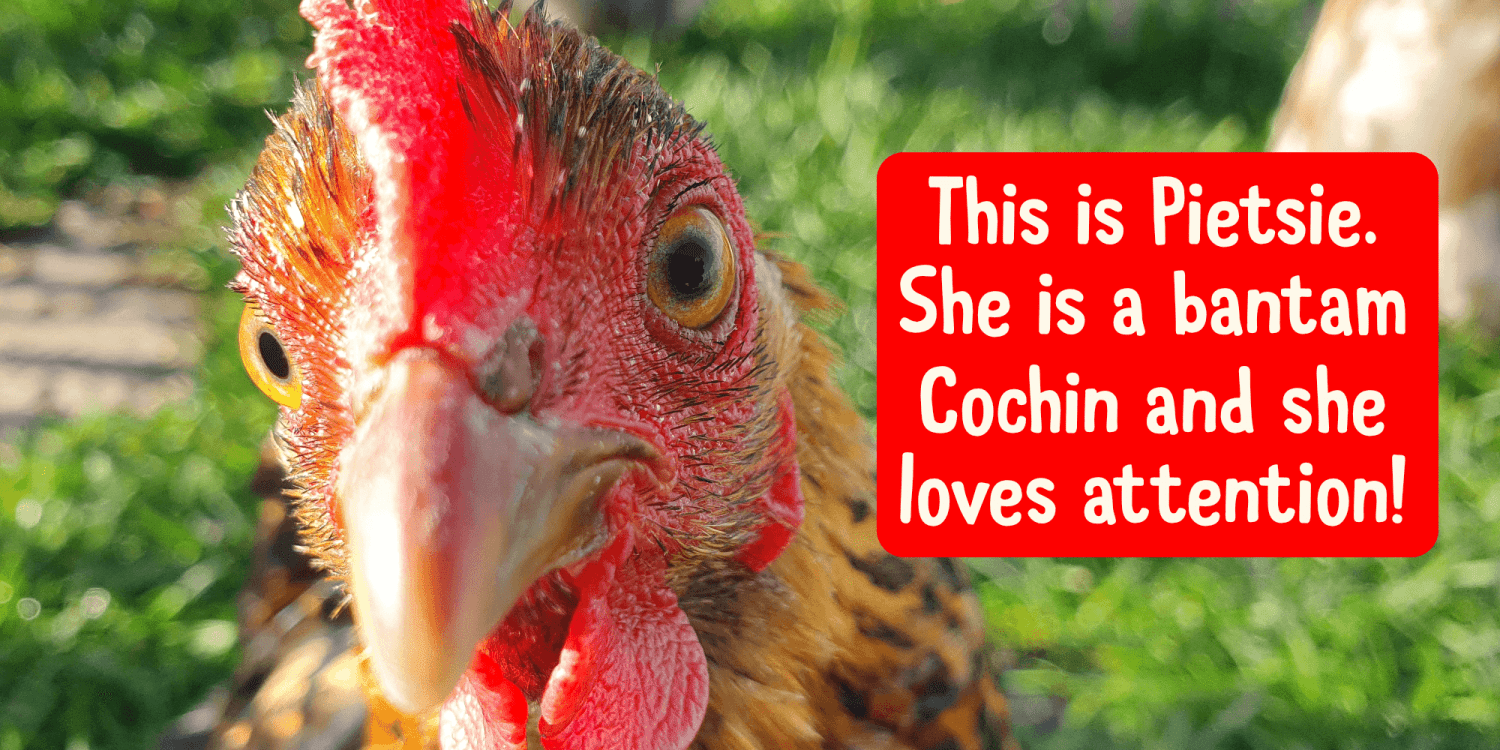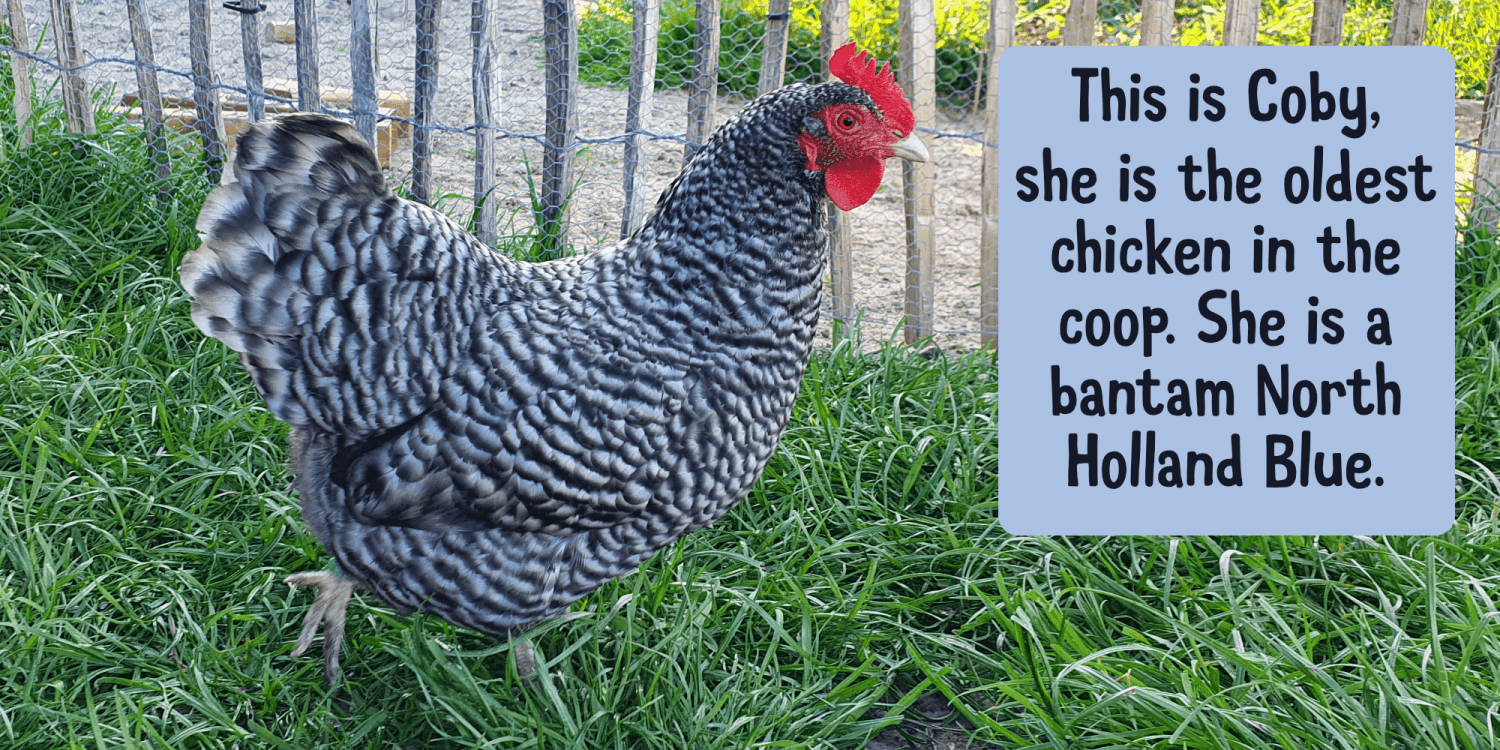
I keep chickens for eggs and meat, but the ones that have names cannot be eaten. 😉 As I was busy working on this font, the chickens were sitting in the window, looking at me and hoping they\’d get a treat! Pecking Order is a cartoon and kids font. It…